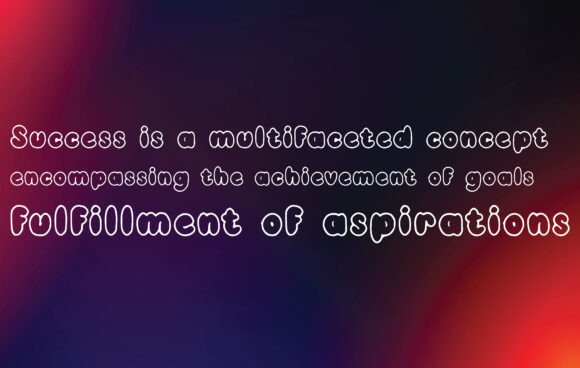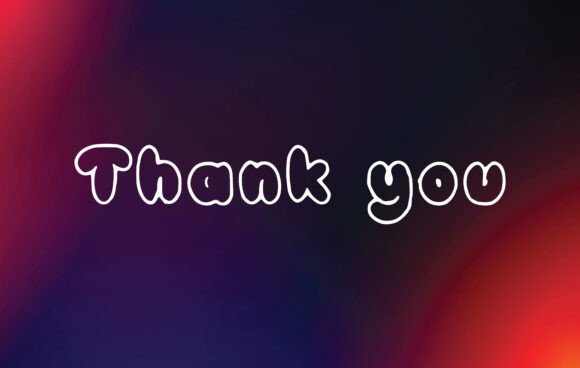
Introduction to Kenai Font
Have you ever been stuck on a creative project, staring at a blank page or screen, desperately searching for the perfect font to bring your ideas to life? That’s where the Kenai Font comes in – a beautiful, handwritten font that can take your creative endeavors to new heights. With its elegant and sophisticated design, this font has the potential to elevate your work and leave a lasting impression on your audience.
As a valuable resource for designers, the Kenai Font is a must-have in your design arsenal. Its high quality and versatility make it an excellent choice for creating eye-catching logos, branding, and quotes. Plus, with its transparent background, you can easily combine it with other design elements to create a cohesive and visually appealing look. And the best part? You can download it for free, making it an accessible design resource for creatives of all levels.
Key Features of Kenai Font
- High-quality design resource ideal for creative projects, offering a unique and elegant aesthetic.
- Unique characteristics include its distinctive letterforms and refined typography, perfect for adding a touch of sophistication to any design project.
- Perfect for use in a variety of creative projects, from logos and branding to digital art and print materials.
Honest Review: Kenai Font
As a designer, I’m always on the lookout for high-quality design resources that can elevate my creative projects. The Kenai Font caught my eye with its clean and modern aesthetic, making it a great addition to any design portfolio.
- ✨ Beautifully designed characters with a transparent background, allowing for seamless integration into various design projects.
- ✨ Highly legible, making it perfect for use in digital design, such as website headers and footers.
- ⚠️ Limited font weights, which may not be suitable for all design projects.
- ⚠️ Not as versatile as some other fonts, making it less suitable for complex design layouts.
Overall, the Kenai Font is a solid addition to any designer’s toolkit. While it may have its limitations, its clean design and transparent background make it a great resource for simple design projects. With a bit of creativity, it can be used to create some truly amazing designs.
Tips for Getting the Most Out of Kenai Font
To get the most out of Kenai Font, use it in combination with other design elements, such as images and shapes. Experiment with different font sizes and colors to create visually appealing designs. Kenai Font’s transparent background also allows for easy layering and manipulation of design elements.
Kenai Font is commonly used in various design projects, including brochures, flyers, and social media graphics. Its high-quality design and transparent background make it ideal for creating eye-catching designs with layers. You can download Kenai Font for free and use it in your creative project, making it a valuable design resource.